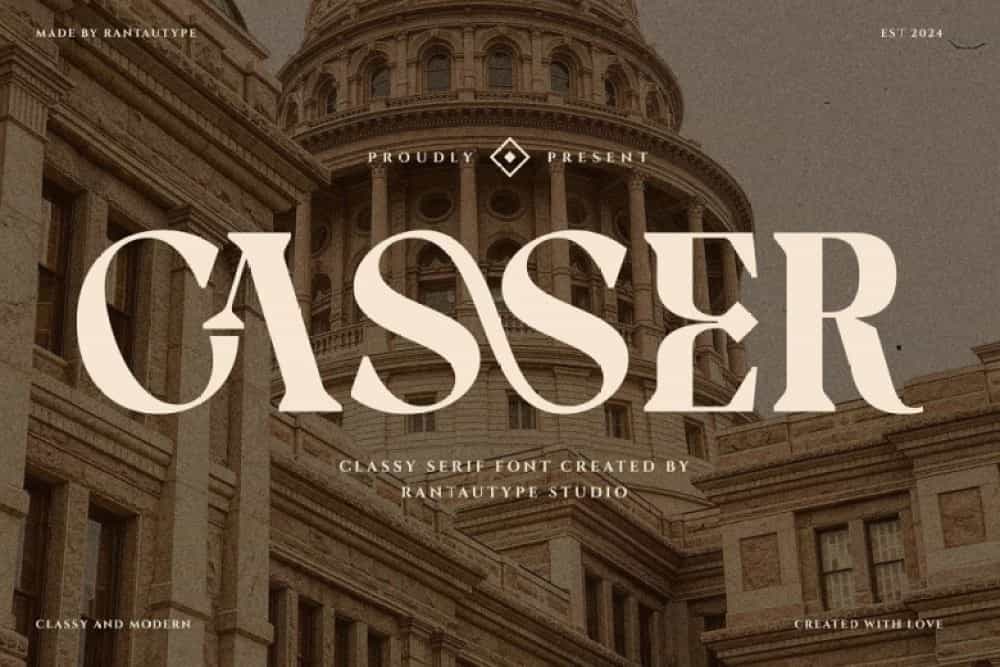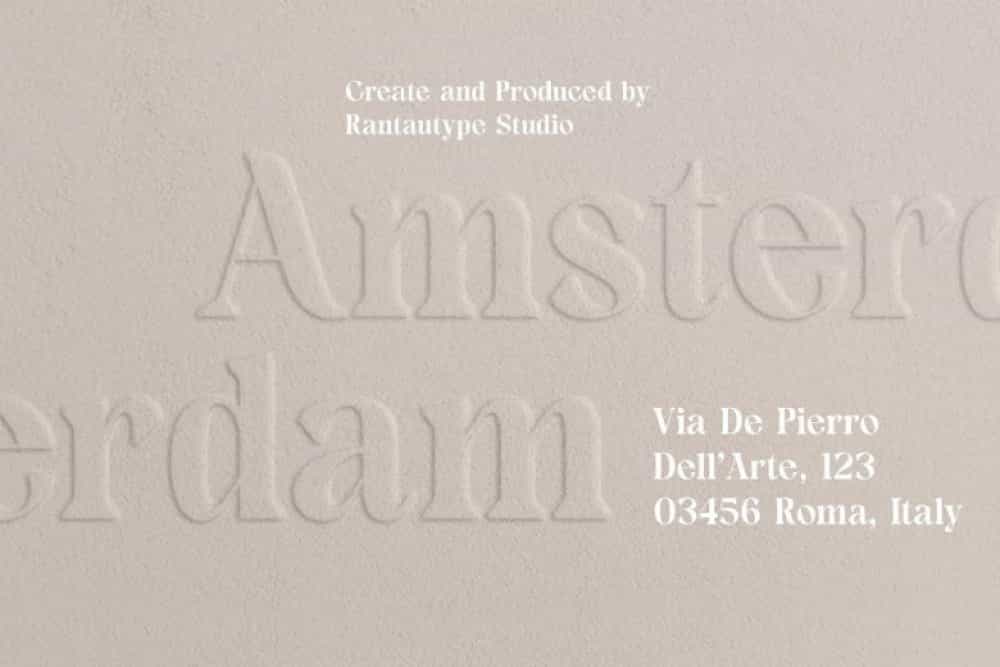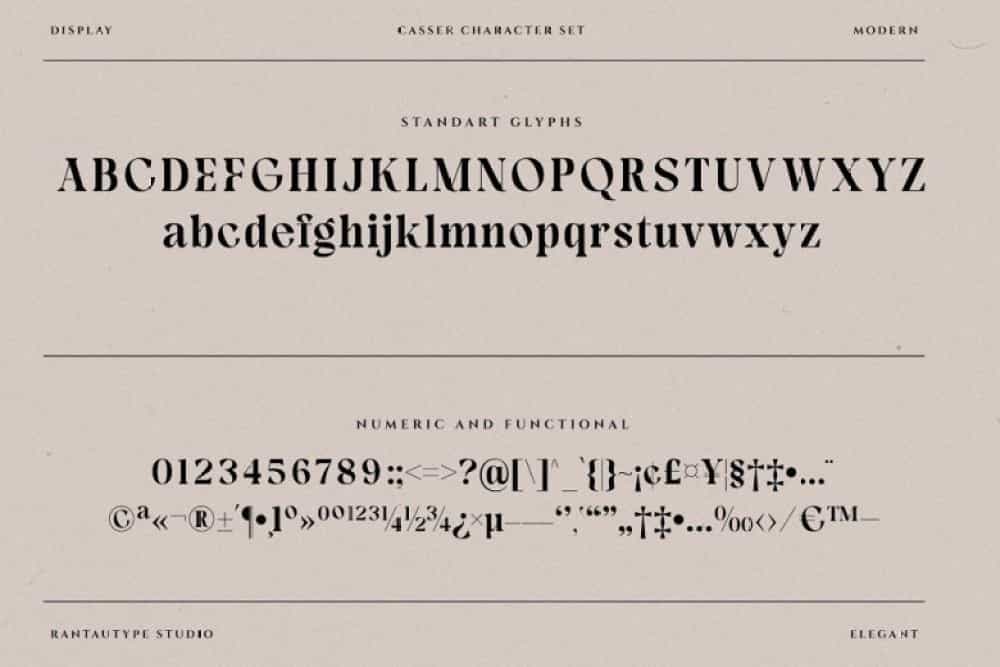
Casser is a beautiful display serif font that is, refined and sophisticated in its looks. The shape is quite tender and has many fine lines that give it a certain elegance and the kind of look that is typically associated with women. Casser adds a certain elegance and flavour to branding, editorial designs, and other projects because of its flexibility and modern style.